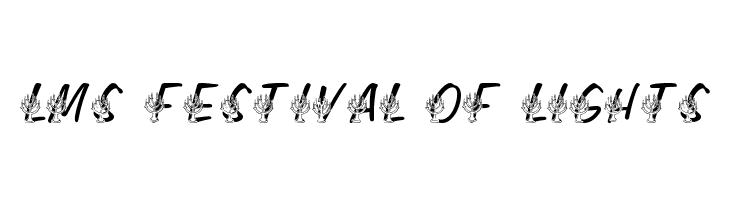
A whimsical font with festive characters integrated into each letter.
A bold, patriotic font with Uncle Sam and American flag motifs.
A whimsical font with ice-skating characters integrated into each letter.
A bold, decorative font featuring integrated deer silhouettes for a rustic, eye-catching design.
A decorative font with bold, italicized letters and candelabra motifs for a festive look.
A playful font featuring Pilgrim hats atop bold characters.
A bold, decorative font with skier silhouettes integrated into each character.
A bold, decorative font with an icy, winter-themed design.
A whimsical font styled to resemble candles, complete with wax drips and flames.
A decorative font with characters encased in bell silhouettes, ideal for thematic designs.